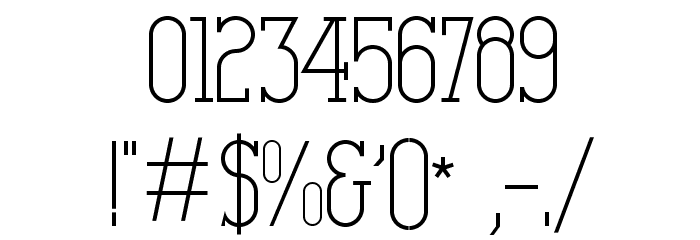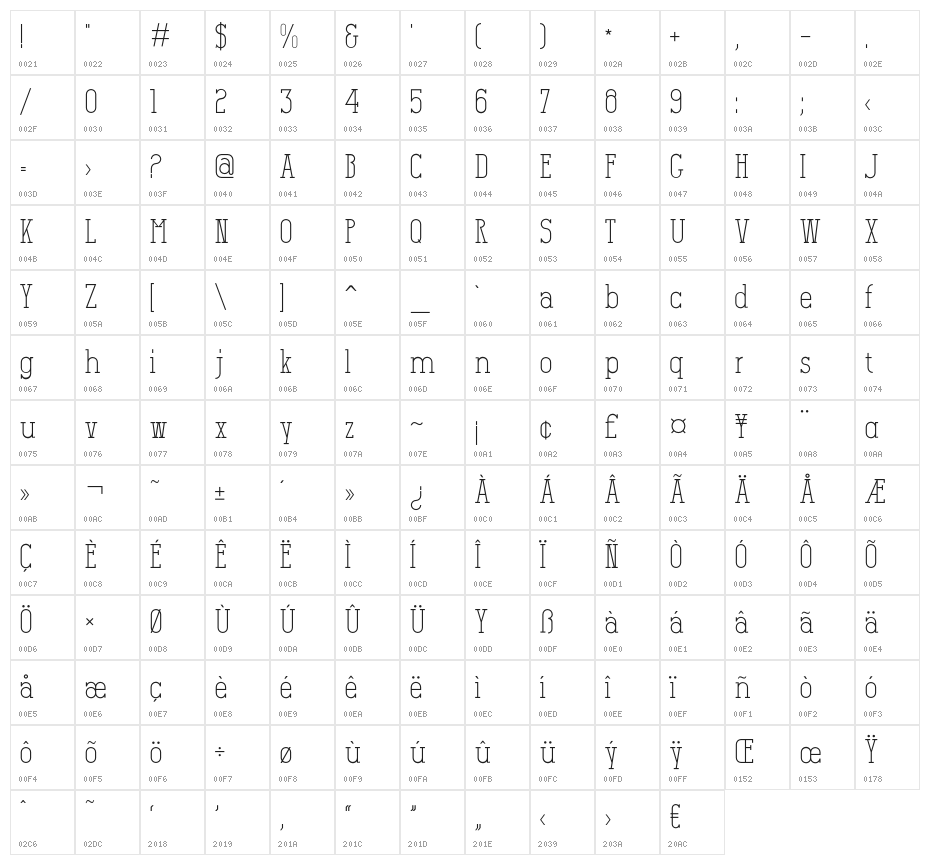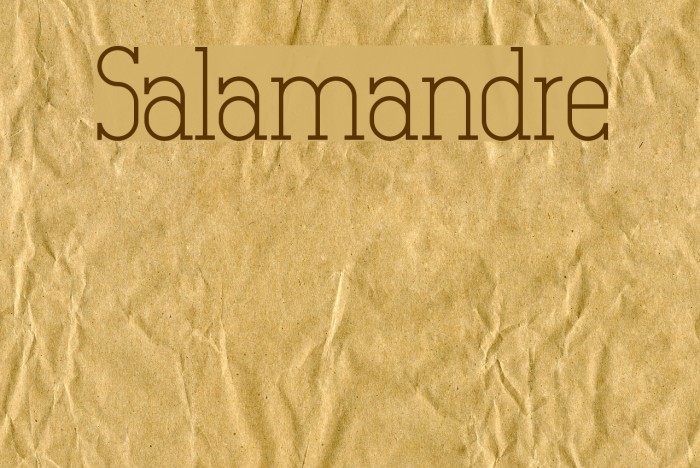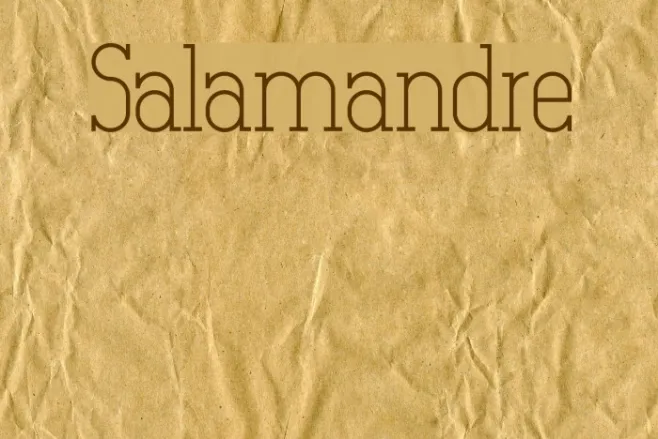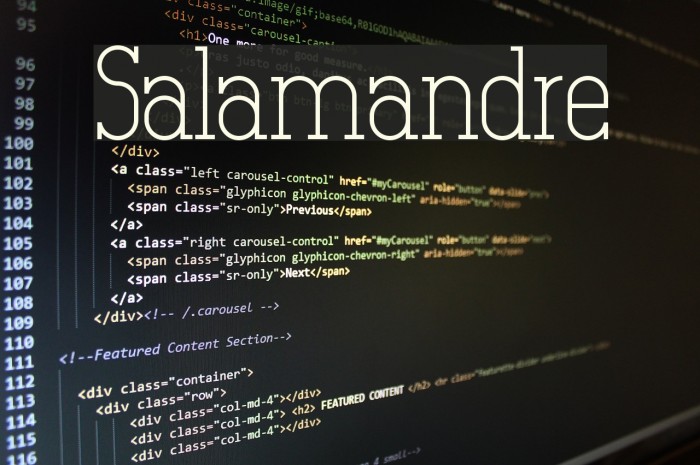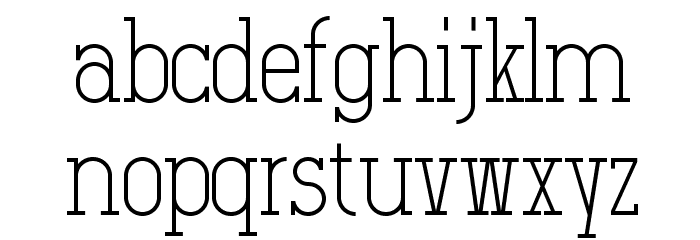
Salamandre Font
Salamandre Description
This font features a distinct slab serif style with a modern twist. The uppercase letters are tall and narrow, giving a sense of elegance and sophistication. The lowercase letters maintain a consistent height, providing a balanced and harmonious look. Numbers are clear and legible, making them suitable for various applications. The special characters are well-designed, complementing the overall aesthetic. The font's clean lines and structured form make it versatile for both digital and print media.